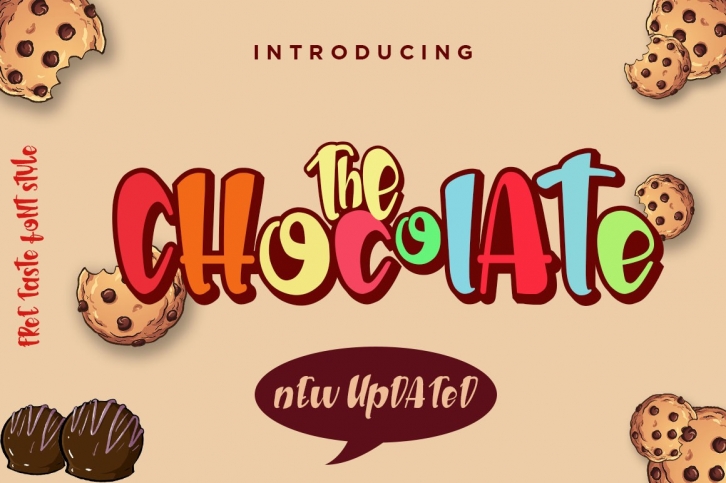
The Chocolate New Fresh Updated FONT Download
The Chocolate  New Fresh Updated Font Download
The Chocolate New Fresh Updated is a gorgeous font that was realeased on April 22, 2019. The font can be used in many style contexts and design environments. Perfect for invitations, magazines, websites, logos, and more! It was designed by Haksen and the file size is 19.17 MB. Thanks for checking out this font!